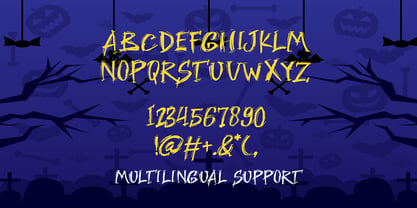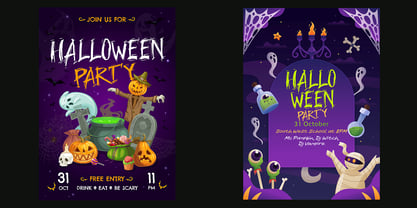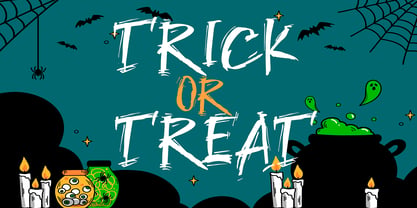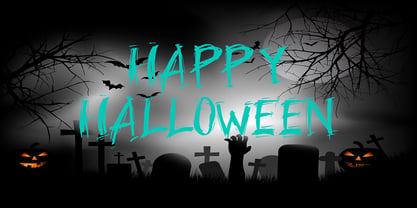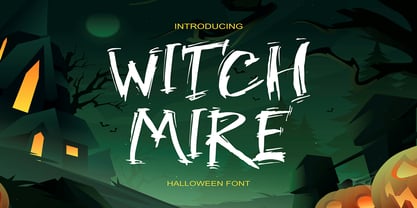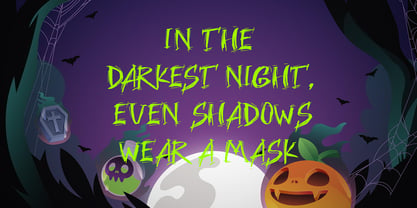
Witch mire
Witch Mire is a Halloween font crafted with eerie brush strokes, jagged edges, and chilling energy. Inspired by horror movie posters, haunted forests, and spooky night skies, this typeface was designed to bring a haunting presence into your projects. Its sharp strokes and messy texture capture the look of hand-painted horror lettering—perfect for setting a dark and mysterious tone.
Every character feels alive with crooked edges and dripping brush details, evoking witches’ spells, haunted houses, and creatures lurking in the shadows. With uppercase, lowercase, numbers, punctuation, and multilingual support, Witch Mire is ready for global use in any Halloween-themed design.
Perfect for posters, flyers, horror book covers, YouTube thumbnails, social media promos, party invitations, pumpkin carving templates, eerie branding, merchandise, and seasonal packaging, this typeface instantly transforms text into something creepy and unforgettable.
Why designers love it:
• Raw brush style with horror-inspired strokes
• Perfect balance of scary and legible
• Great for Halloween parties, horror films, and spooky branding
• Multilingual support for international projects
Whether you’re designing a Halloween event poster, creating creepy merch, or adding dark magic to your digital graphics, Witch Mire delivers the terrifying aesthetic you’re looking for.